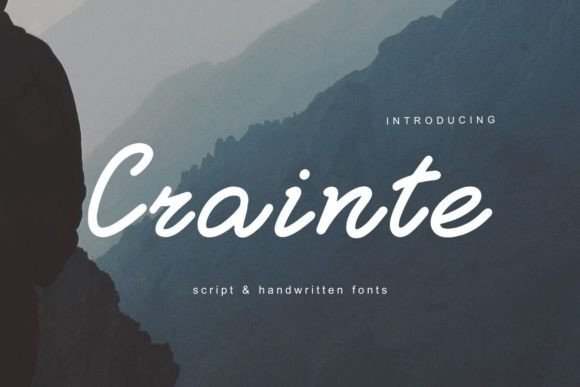
Introducing Crainte Font, the epitome of beauty and elegance in the realm of script and handwritten fonts. Designed by the skilled hand of TONGMON DRAW, Crainte is a font family that evokes a sense of grace and sophistication, making it the perfect choice for those seeking to add a touch of refinement to their creative endeavors.
With its flowing letterforms and meticulous attention to detail, Crainte exudes a charm that captivates the senses. Each curve and swirl is crafted with intention, resulting in a font that dances across the page with fluidity and grace. Its elegant presence lends itself effortlessly to a wide array of design projects, from branding and invitations to editorial design and beyond.
Step into a world of enchantment as you delve into the world of Crainte. Allow this font to transport you to a realm of creativity and imagination, where your designs blossom with an aura of beauty and sophistication. Whether you're designing logos, invitations, or social media graphics, Crainte is your trusted companion, guiding you towards artistic excellence.
Explore the versatility of Crainte as it seamlessly adapts to your creative vision. Its inherent beauty pairs effortlessly with a variety of themes, including beauty, kids' designs, birthday invitations, summer designs, t-shirt designs, crafting, stickers, sublimation, and more. Unleash your imagination and let Crainte be your muse, and watch as your designs take on a life of their own.
Crainte is not just a font; it's an experience. Its elegant curves and whimsical charm will leave an unforgettable impression on your audience, captivating their attention and leaving them yearning for more. Embrace the power of Crainte and elevate your designs to new heights.